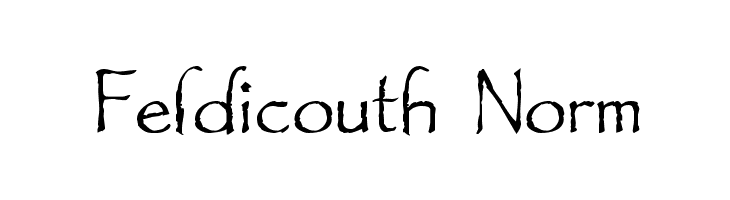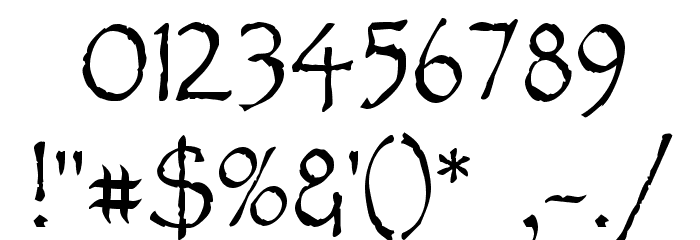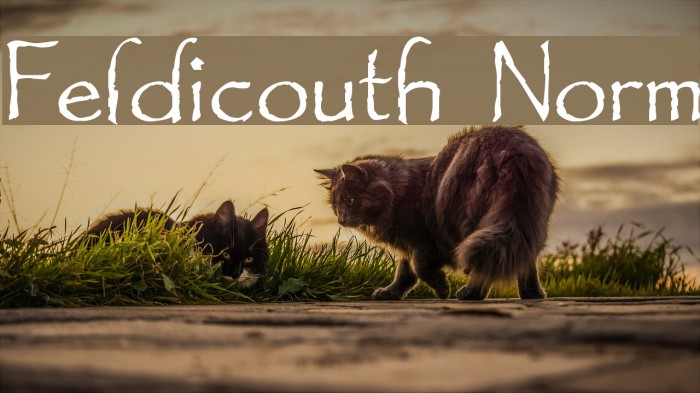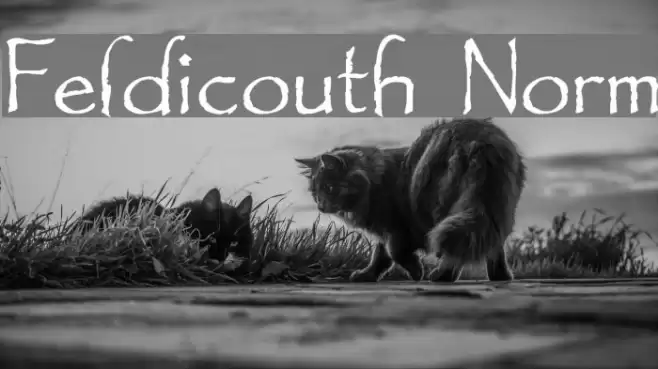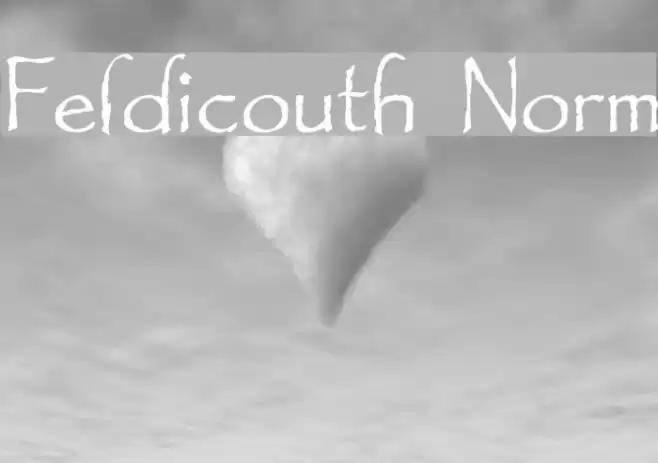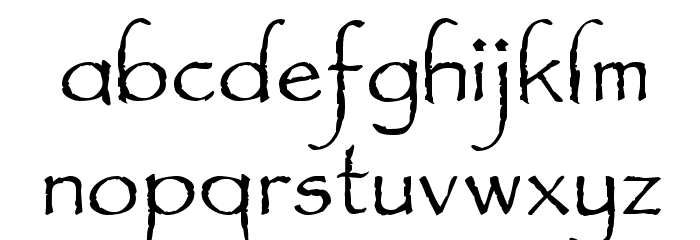
Feldicouth Norm Font
| Gesamtstil | Artistic, Whimsical |
| Anwendungsfall | Headlines, Logos, Creative projects |
| Vorgeschlagene Projekte | Ideal for creative projects such as invitations, greeting cards, posters, and branding materials that require a unique and artistic touch. |